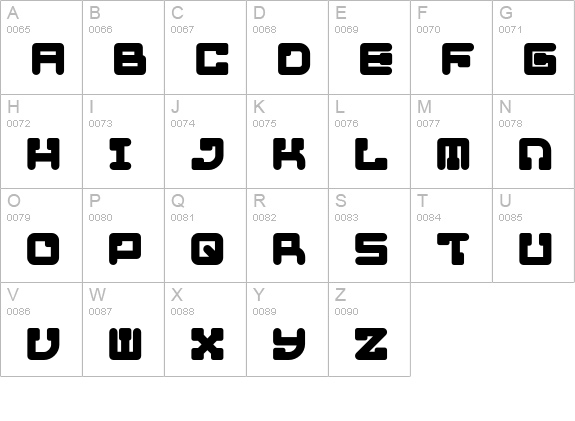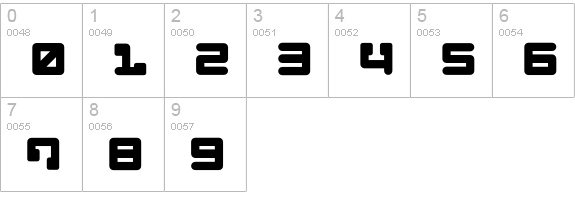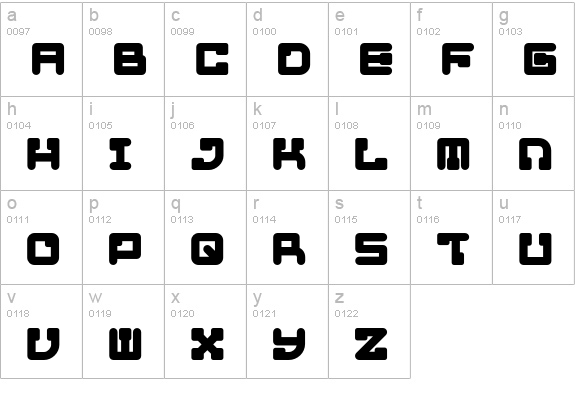
CANDY-EG Font Details
Introducing CANDY-EG font, a delightful and playful typeface that will add a sweet touch to your designs. This unique font features charming curves and whimsical details that make it perfect for creating eye-catching projects. Whether you're designing invitations, posters, or branding materials, CANDY-EG font is sure to bring a fun and lively element to your work. Best of all, CANDY-EG font is available for free download at FontsMarket.com. This means you can easily access this fantastic font and use it in your projects without any cost. Don't miss out on the opportunity to add a touch of sweetness to your designs with CANDY-EG font - download it today and let your creativity shine!